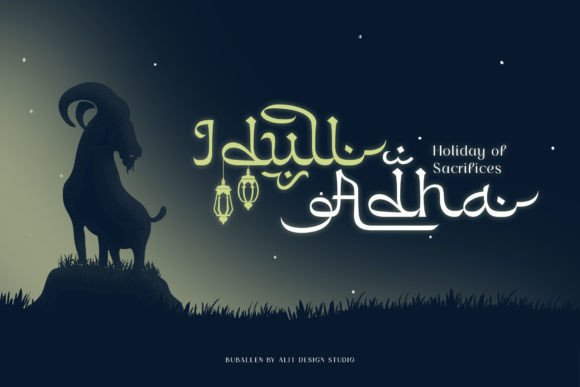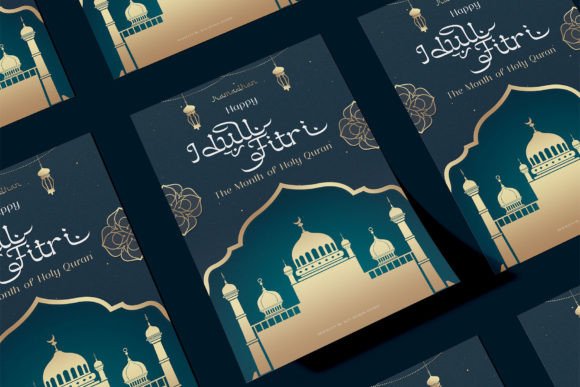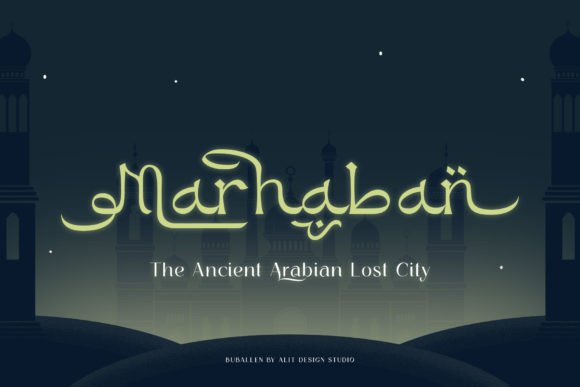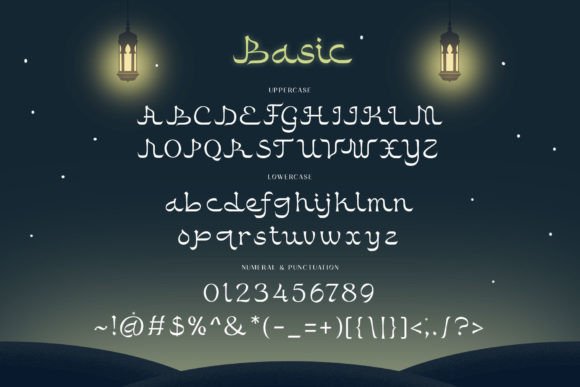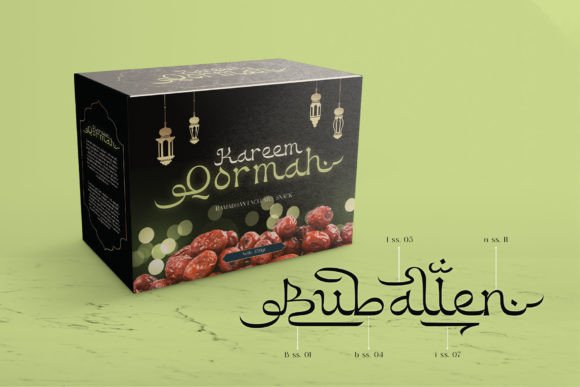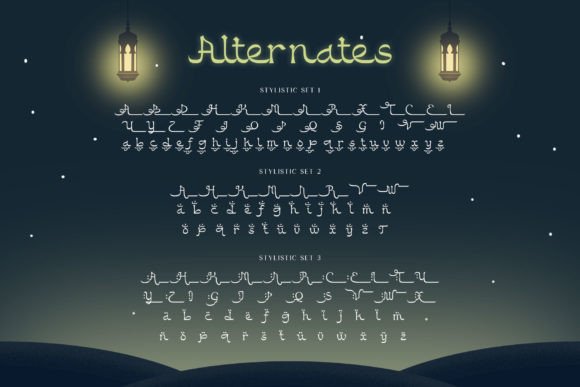
Unlock the Beauty of Islamic Design with the Buballen Font
As a designer, you’ve probably had those moments when you’re working on a project and suddenly, you get that spark of inspiration. You see the entire design come together in your mind’s eye, and you can’t wait to bring it to life. For many designers, Ramadan promotions and Islamic design projects are a great opportunity to showcase their creativity and cultural sensitivity. That’s where the Buballen Font comes in – a beautifully crafted font that adds a touch of elegance and sophistication to your designs.
The Buballen Font is specifically designed to cater to Islamic design projects, making it an excellent choice for Ramadan promotions and other cultural events. With its PUA-encoded design, you can easily access all the delightful glyphs and swashes that will elevate your designs to the next level. Whether you’re a seasoned designer or just starting out, the Buballen Font is a valuable addition to your toolkit.
Buballen Font Key Features
- Unique Characteristics: Buballen Font features a distinctive, playful design with rounded edges and a cursive feel, making it ideal for use in creative and whimsical contexts.
- Script and Font Styles: The font includes various script and font styles, including regular, bold, italic, and bold italic, providing users with flexibility and versatility in their design choices.
- Language Support: Buballen Font supports a wide range of languages, including Latin, Cyrillic, and Greek alphabets, making it suitable for use in multilingual applications.
Buballen Font Review
When I first stumbled upon the Buballen Font, I was immediately drawn to its playful and whimsical feel. It’s perfect for creating eye-catching titles and headings that add a touch of personality to your designs.
- ✨ Unique and quirky design that adds a touch of whimsy to your projects.
- ✨ Versatile font that works well for both digital and print designs.
- ✨ Well-suited for creating bold and attention-grabbing titles.
However, as with any font, there are some limitations to consider:
- ⚠️ Limited character set, which may not be suitable for longer blocks of text.
- ⚠️ Not ideal for body text, as it can be difficult to read at smaller font sizes.
- ⚠️ May not be suitable for formal or professional designs, due to its playful and whimsical feel.
Overall, I think the Buballen Font is a great addition to any designer’s toolkit. While it may not be suitable for every project, it’s perfect for adding a touch of personality and whimsy to your designs. With its unique design and versatility, I think it’s definitely worth checking out.
Buballen Font is suitable for various design projects, including: invitations, greeting cards, social media graphics, and blog posts. Its playful and whimsical nature makes it perfect for creative and artistic designs.